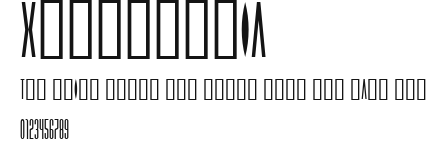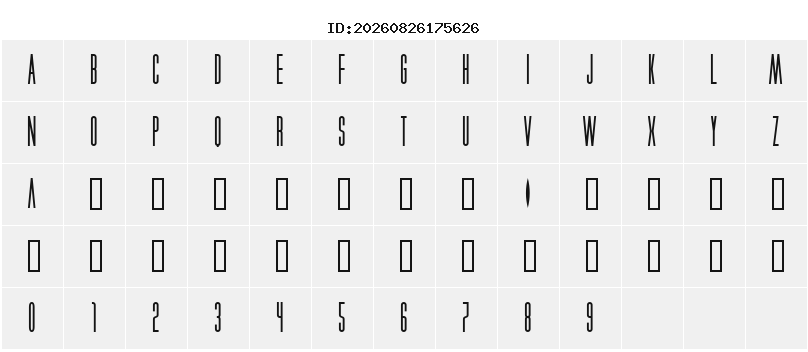
Xenophobia Preview
• Font Name: Xenophobia
• Font Style: Nominal
• Font ID: Xenophobia | Nominal | ©2001 Joiro Hatagaya
• Full Font Name: Xenophobia Nominal
About Xenophobia.ttf
Xenophobia.ttf is a modern, elegant sans-serif font designed for ultimate readability and visual harmony. Perfect for branding, headlines, web design, and print materials.